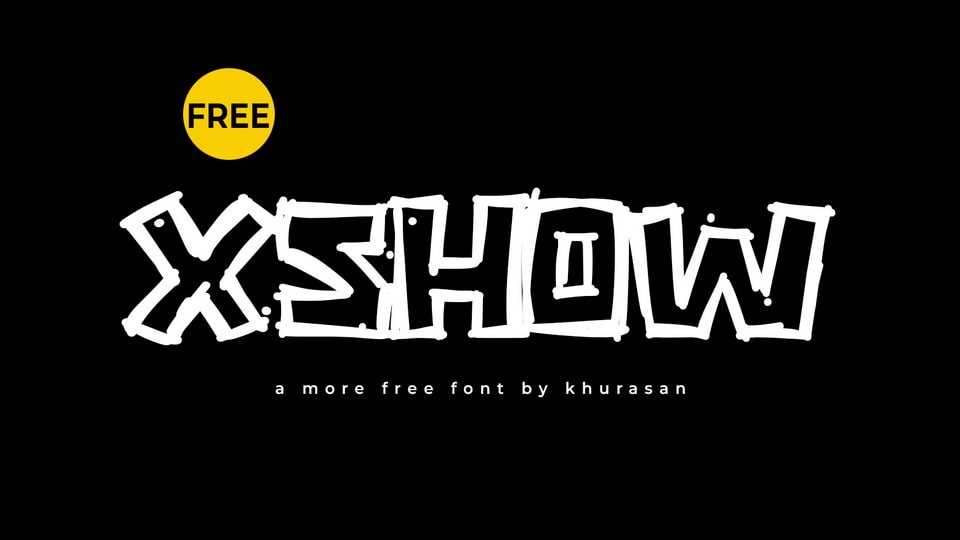
Download Xshow font, a bold hand-drawn typeface that adds an edgy vibe to your designs. This typographic masterpiece is a rebellious fusion of street art flair and free-spirited creativity, designed to make your text pop with urban energy.